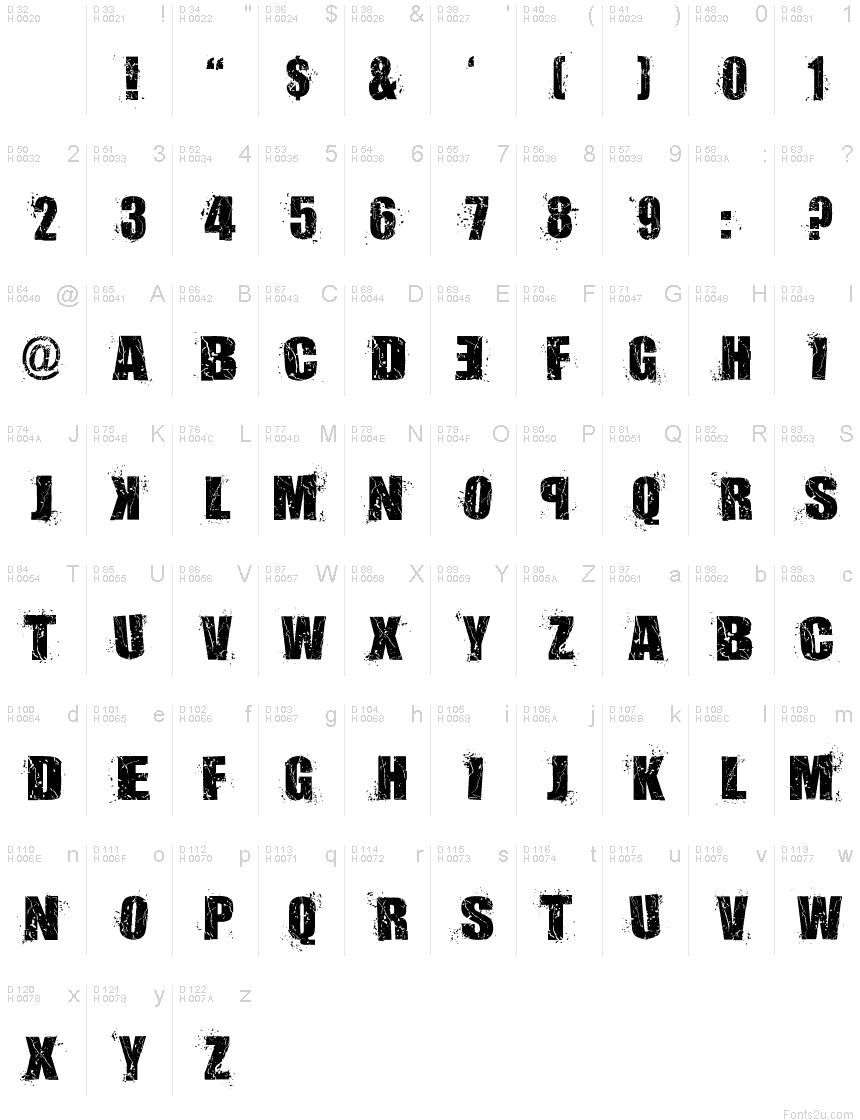
Assassins Dub Bold is a free eroded display font with massive, tightly packed capitals and a harsh cutout texture. Chips, scratches, and scattered flecks tear across the broad strokes, resembling cracked paint rather than gentle aging.
Its battered surface suits underground music posters and action-game graphics, where blunt lettering matches aggressive subject matter. It also has the grit for streetwear merchandise. Photography and torn-paper collage can echo the broken marks, turning the type into part of the artwork.